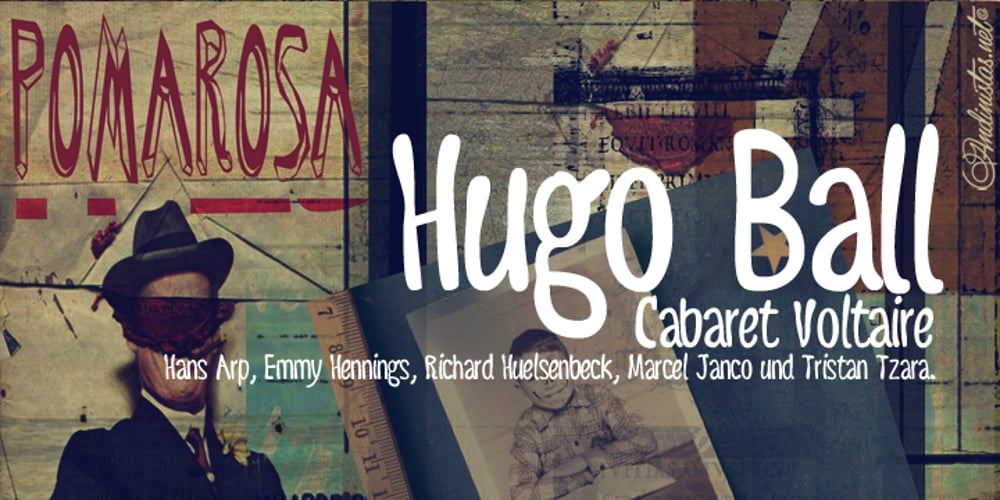
Pomarosa
Pomarosa Font Family was designed by Carlos Fabián Camargo Guerrero and published by Andinistas. Pomarosa contains 3 styles and family package options. Pomarosa is a typographic family that consists of capital roman letters and twisted lower case letters set randomly. Each one of them is characterized by its multiple calibers and widths. Pomarosa was planned to accompany graphic works done with different techniques and materials such as hand made collages. The narrowness of its glyphs involve its audience with abstract imprecision. Its spirit was born between fabric snippets intervened with pencil and painting. Its three members work in group and also in words or phrases with a non-finished look. Regular Pomarosa and Standard Pomarosa have 260 glyphs each. Both of them simulate to have been done by a right-handed person that works with its left hand. Pomarosa dingbats has 26 illustrations useful for frames and textures.